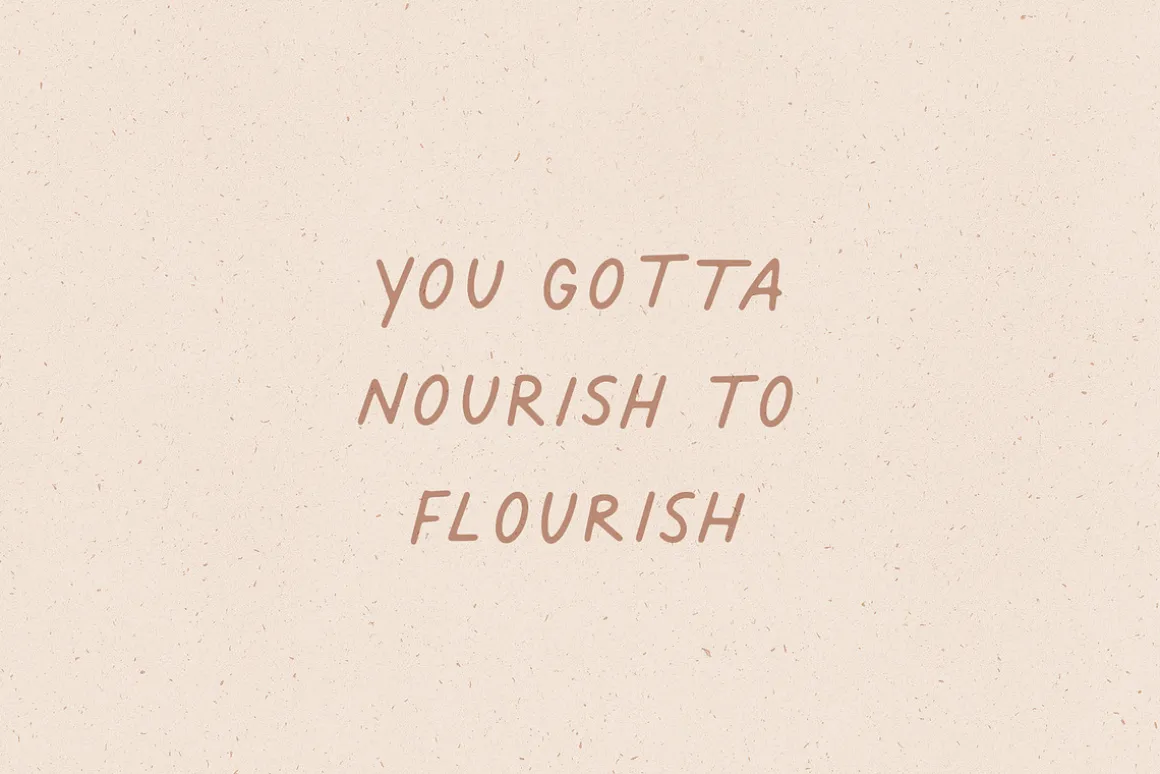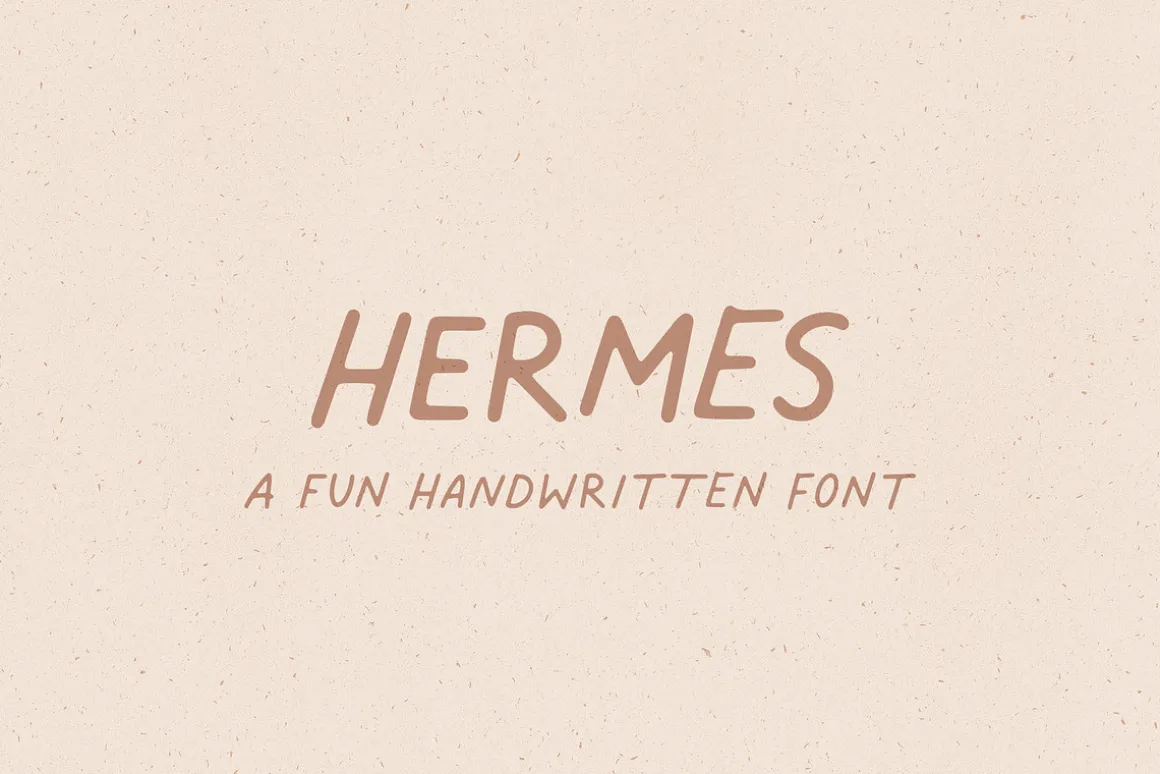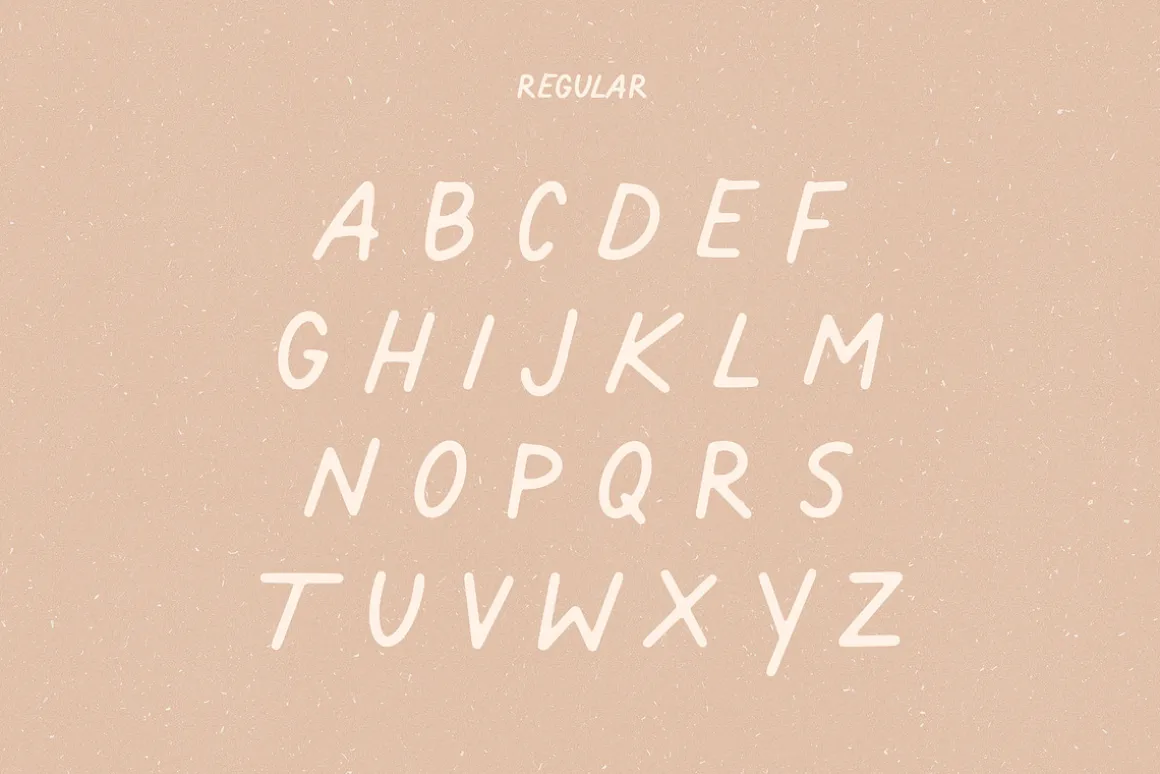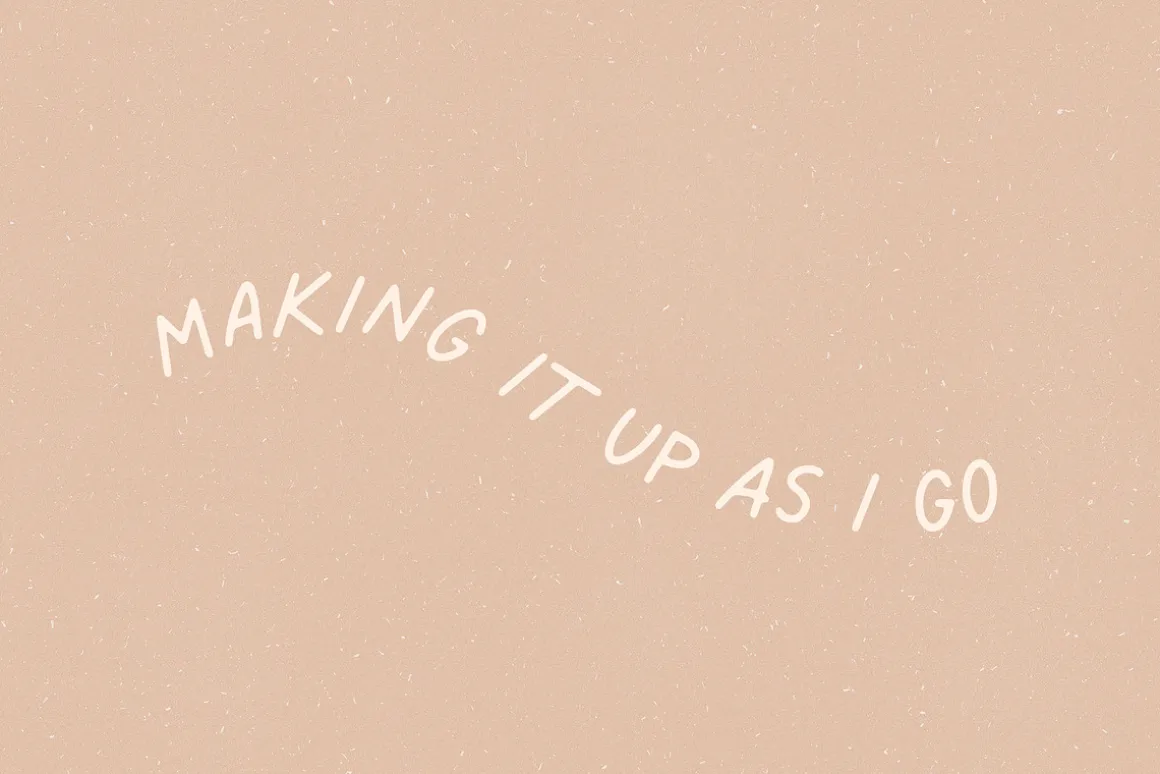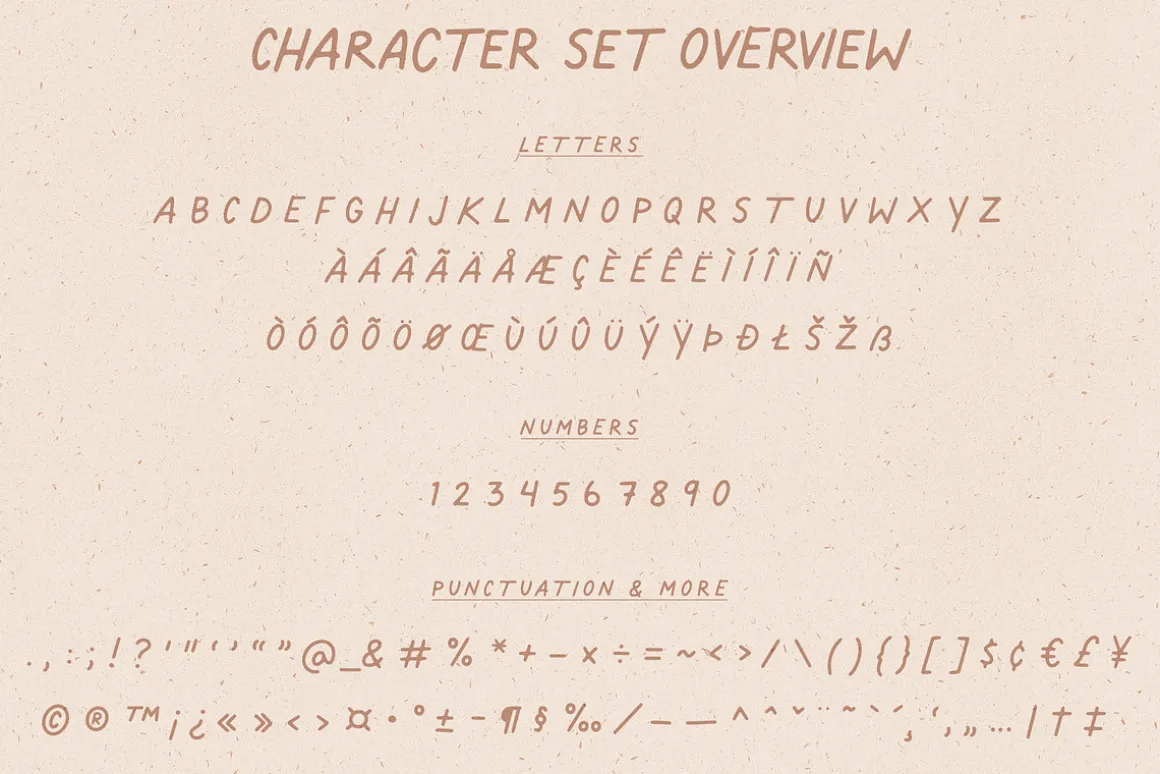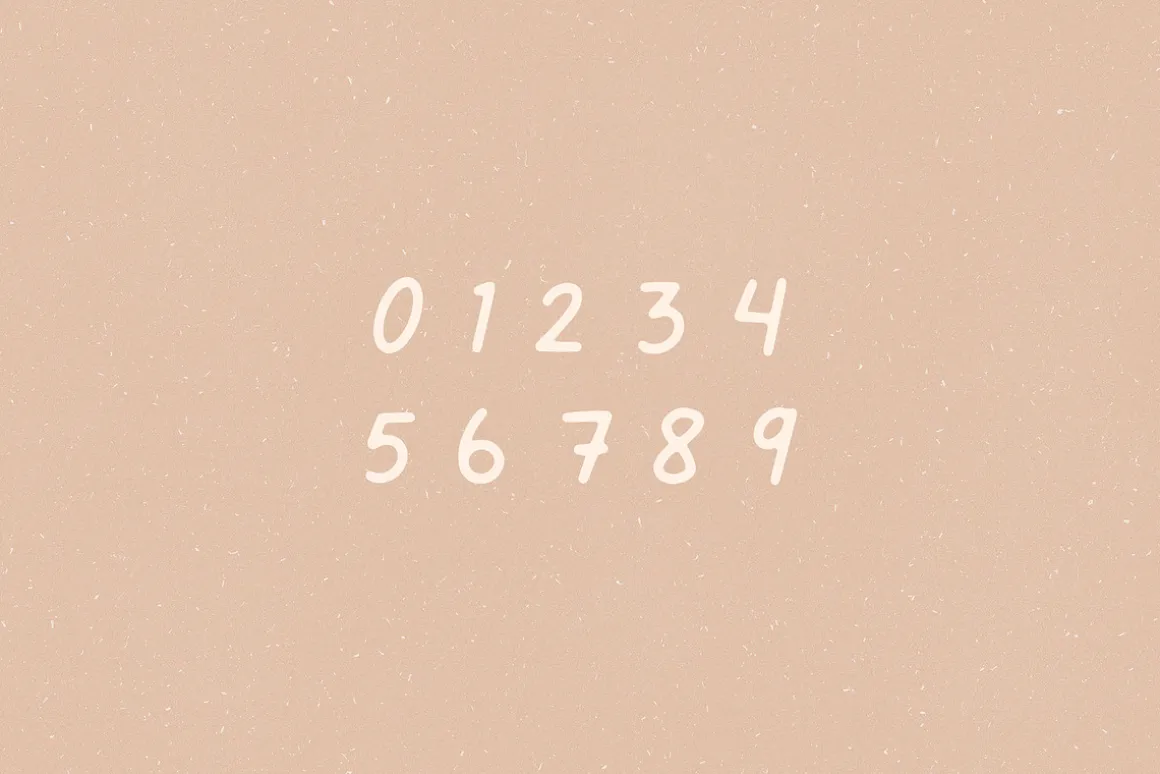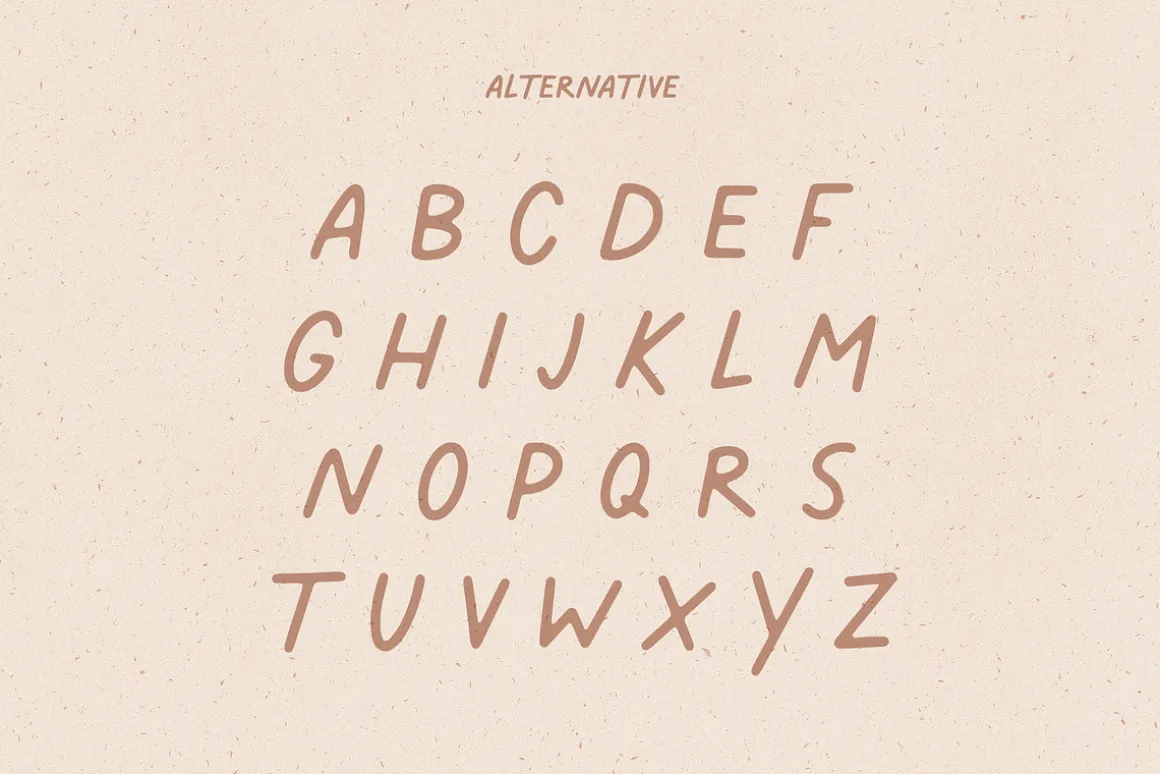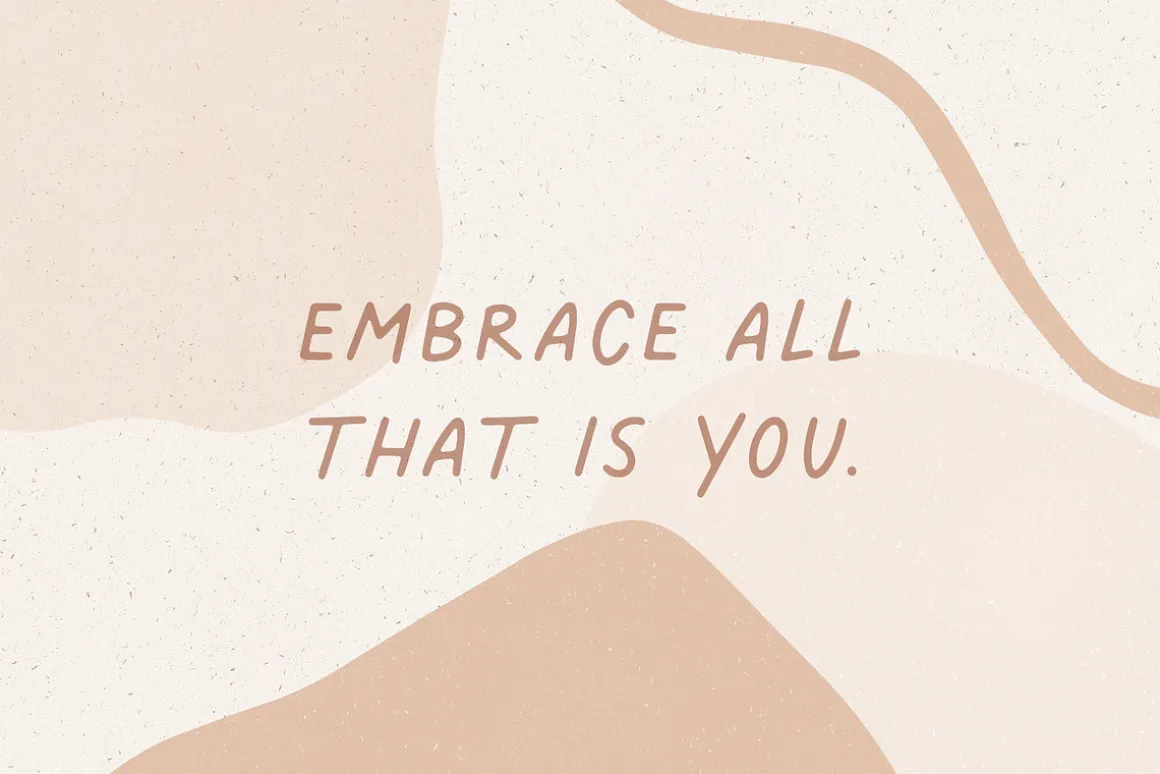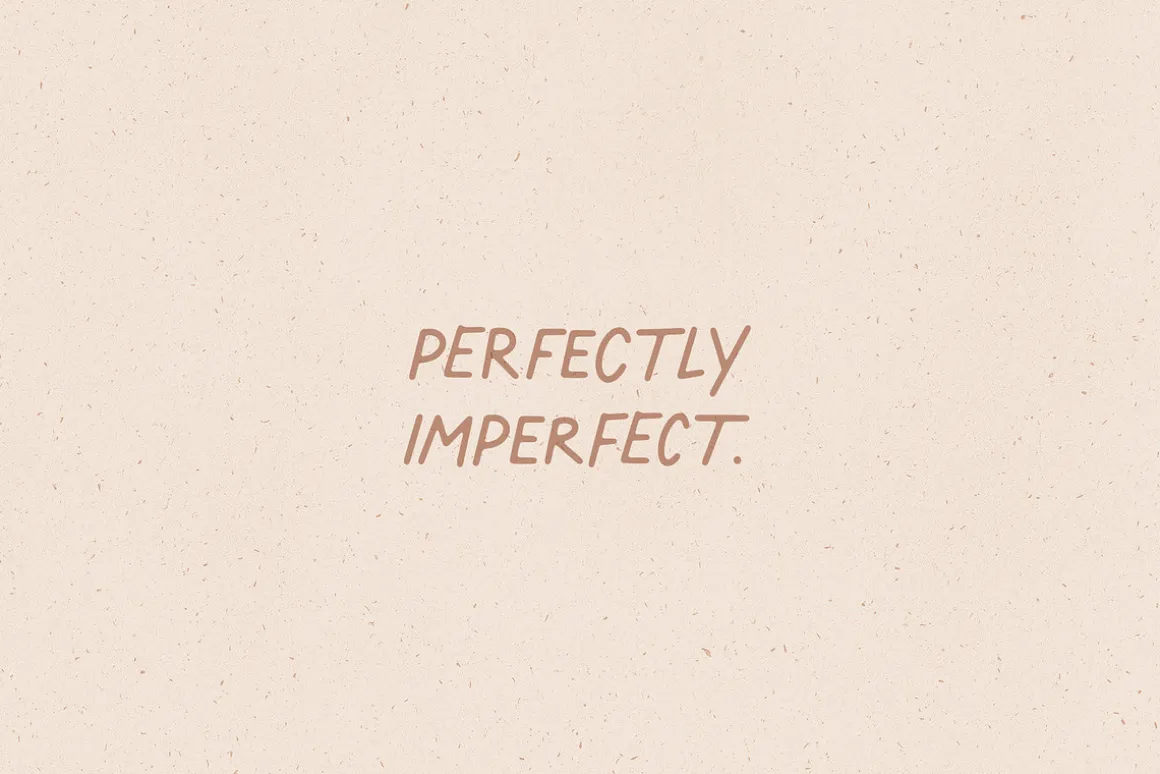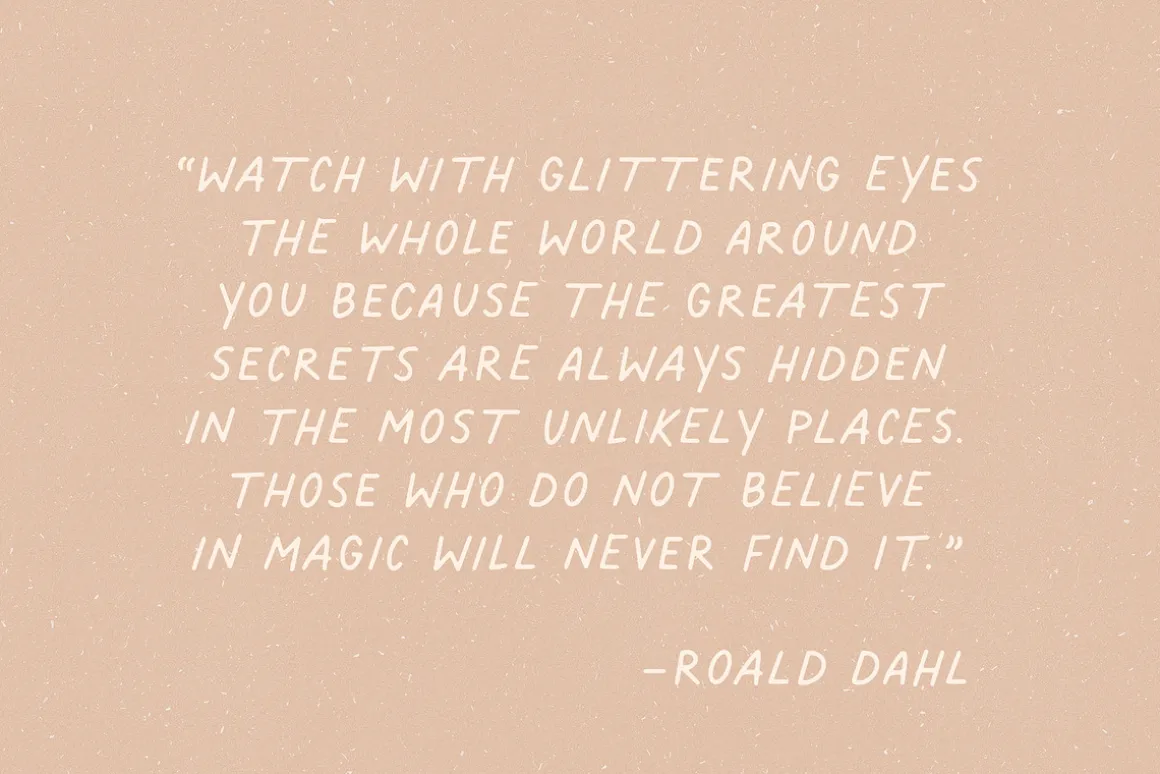
Hermes is a quirky and fun, all-caps, handwritten font. There is both a regular version and an alternative version, so, you can achieve that perfectly imperfect handwritten look. Perfect for social media images, creating quotes, or just adding a handwritten touch to your projects.
Features:
- 2 sets of uppercase letters
- Numbers and punctuation
- Accented characters for the international designer